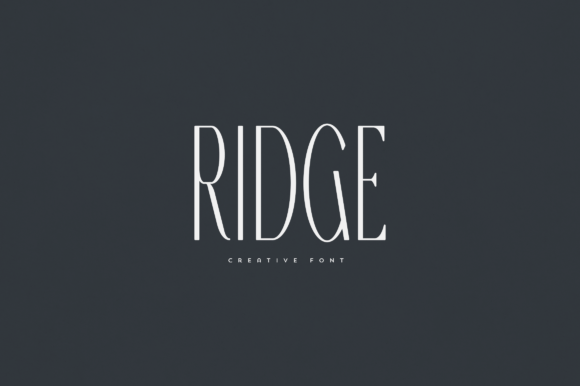
Feast your eyes on Ridge Font, an exquisite display font crafted to elevate your typography beyond the ordinary. Its meticulously crafted curves and sophisticated details will captivate your audience, transforming your creative projects into masterpieces.
Picture this: Your Instagram highlights transformed into an aesthetic wonderland, adorned with the captivating allure of Ridge Font. Let your personality shine through as you captivate your followers with each story, post, and reel. Embrace Ridge Font and witness your Instagram presence blossom into a symphony of visual delight.
Beyond social media, Ridge Font unlocks a world of creative possibilities. Weave your magical words into logos that resonate with your brand's essence. Design homeware items that whisper elegance and charm. Create product packaging that beckons customers to indulge in your offerings. Craft magazine headers that demand attention and leave a lasting impression.
The versatility of Ridge Font extends beyond mere functionality; it empowers you to evoke emotions, to inspire action, and to establish an unforgettable connection with your audience. Let Ridge Font be your creative compass, guiding you toward a world of limitless expression and boundless imagination.
With Ridge Font, you hold the key to unlocking your creative potential. Unleash the magic within you and embark on a journey of self-expression like never before. Embrace Ridge Font today and witness your creative dreams soar to new heights.